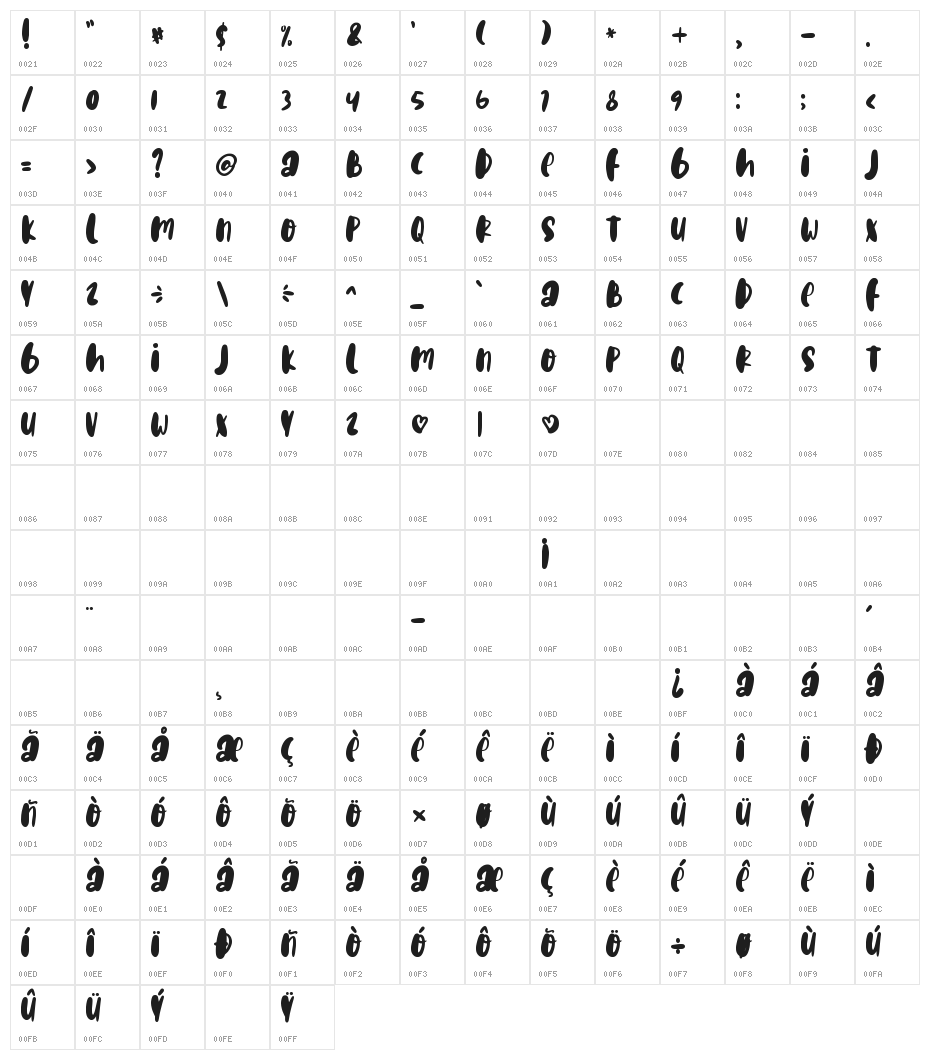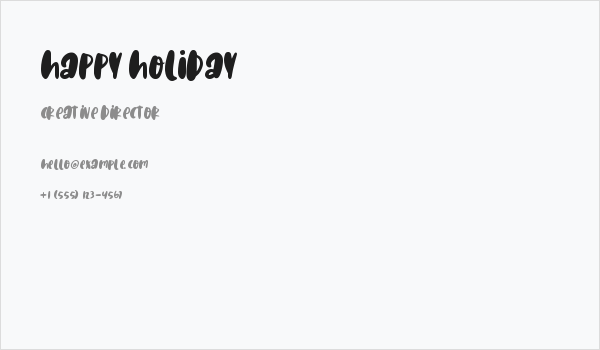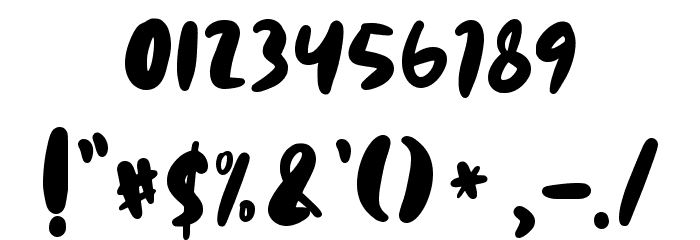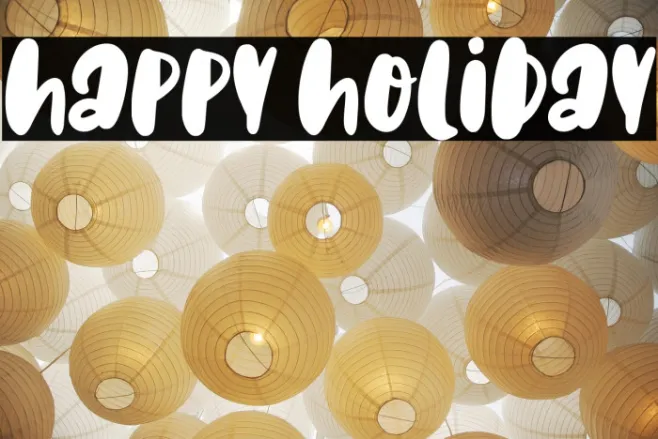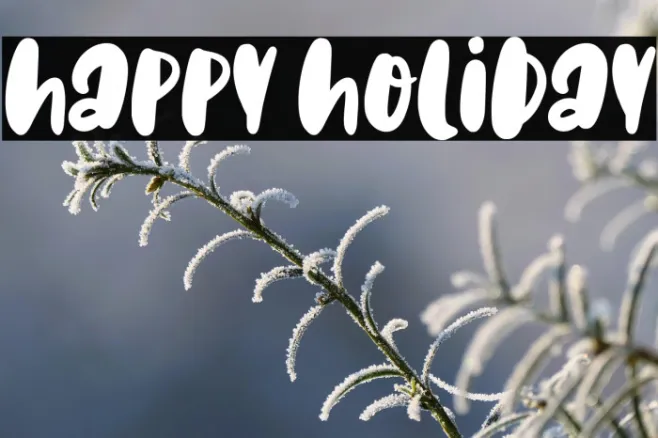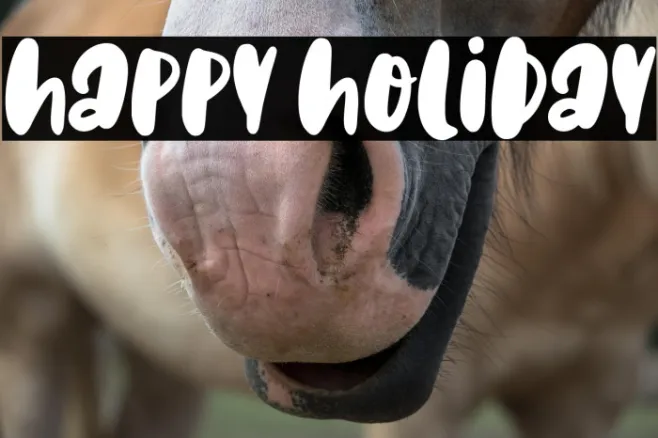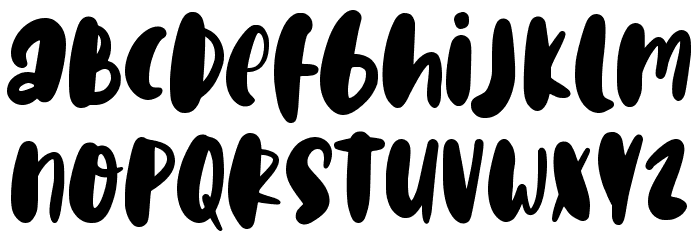
Happy Holiday Font
Happy Holiday Description
This playful and bold font features a handwritten style with thick, rounded strokes that give it a lively and energetic appearance. The letters are closely spaced, creating a compact and cohesive look. The uppercase and lowercase letters maintain a consistent style, with smooth curves and a slightly irregular baseline that adds to its charm. The numbers and special characters are equally bold and expressive, making them stand out. This font is perfect for projects that require a fun and informal touch, such as holiday cards, party invitations, or playful branding materials.
| Proposed Projects | Ideal for holiday cards, party invitations, playful branding, and children's book covers. |